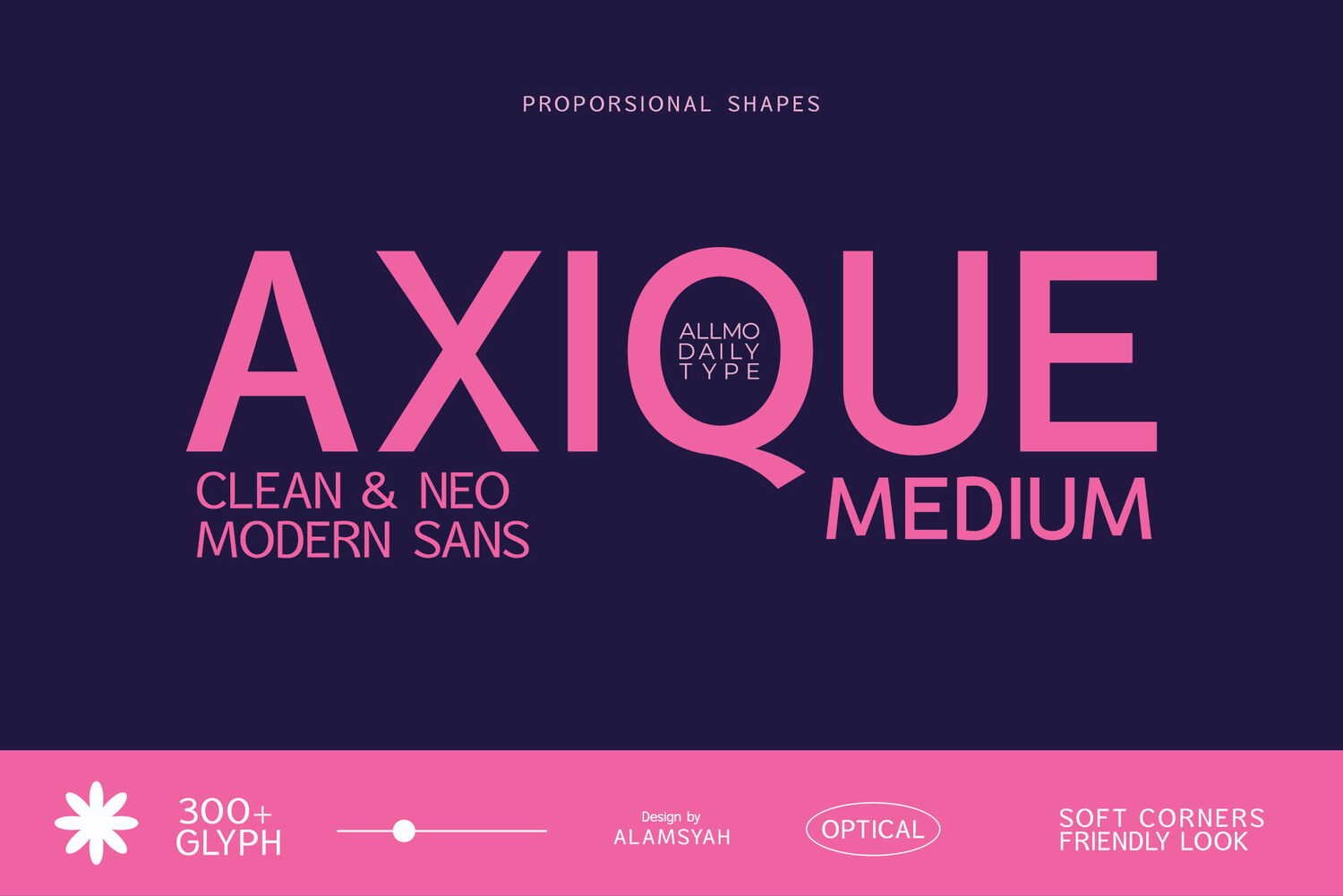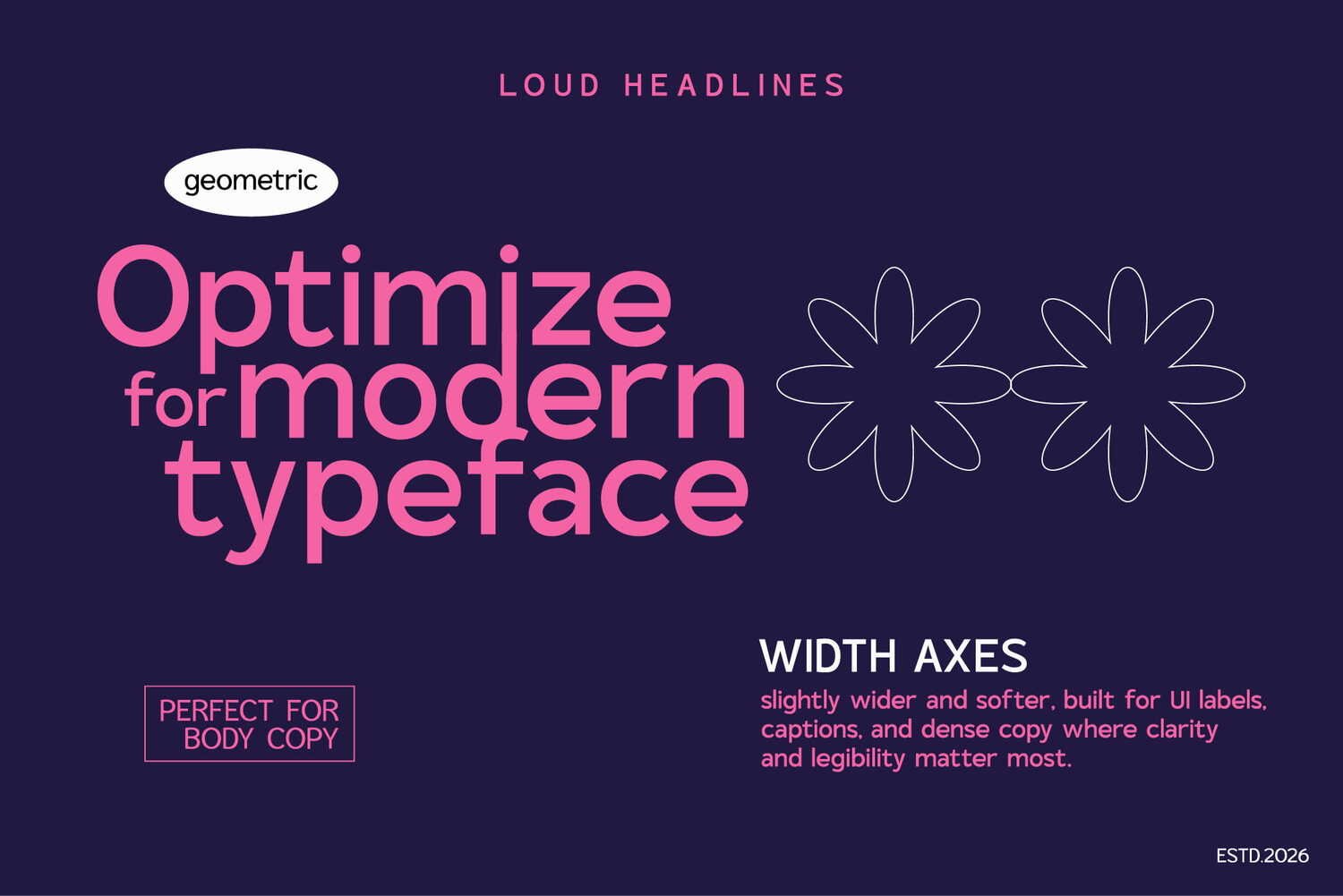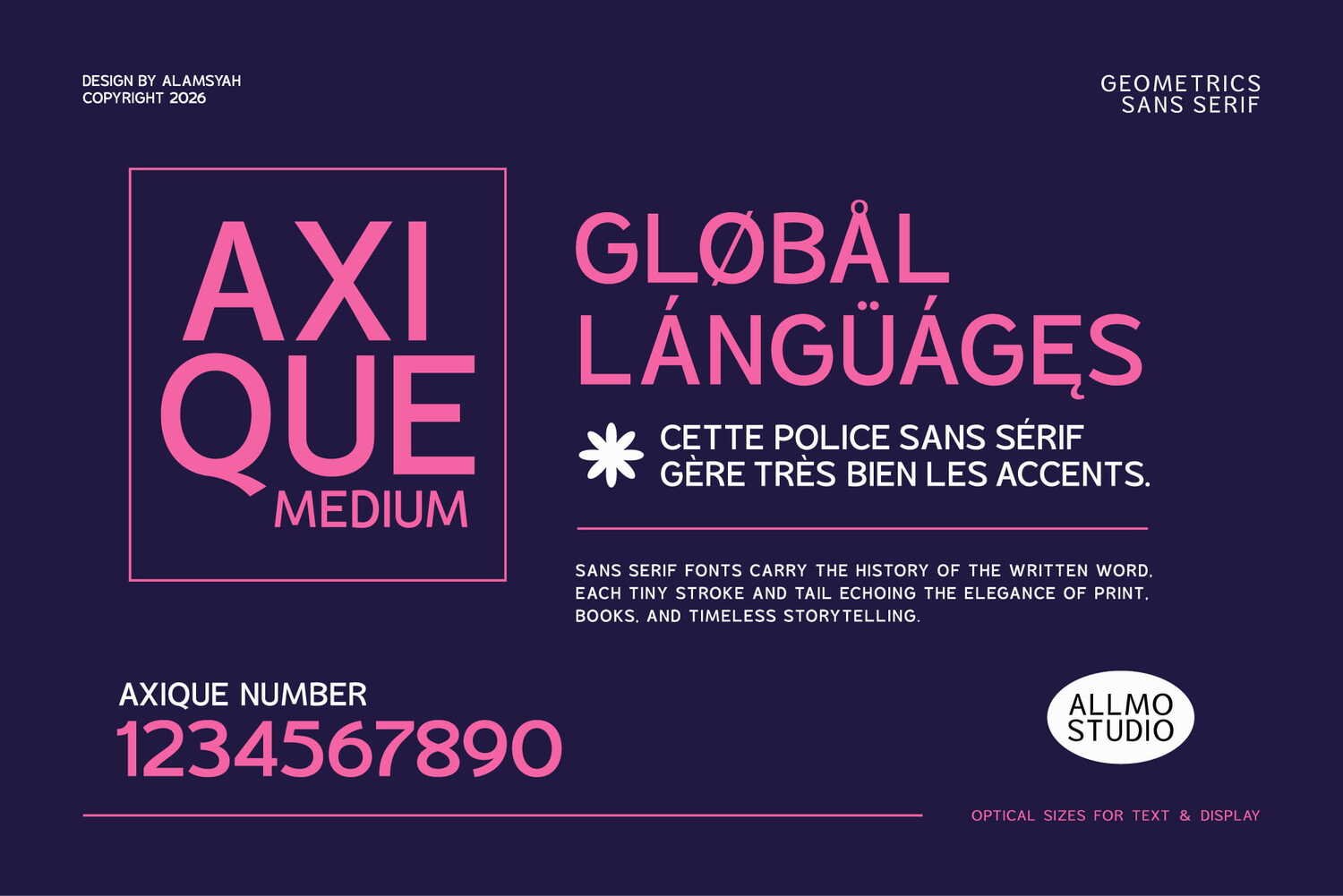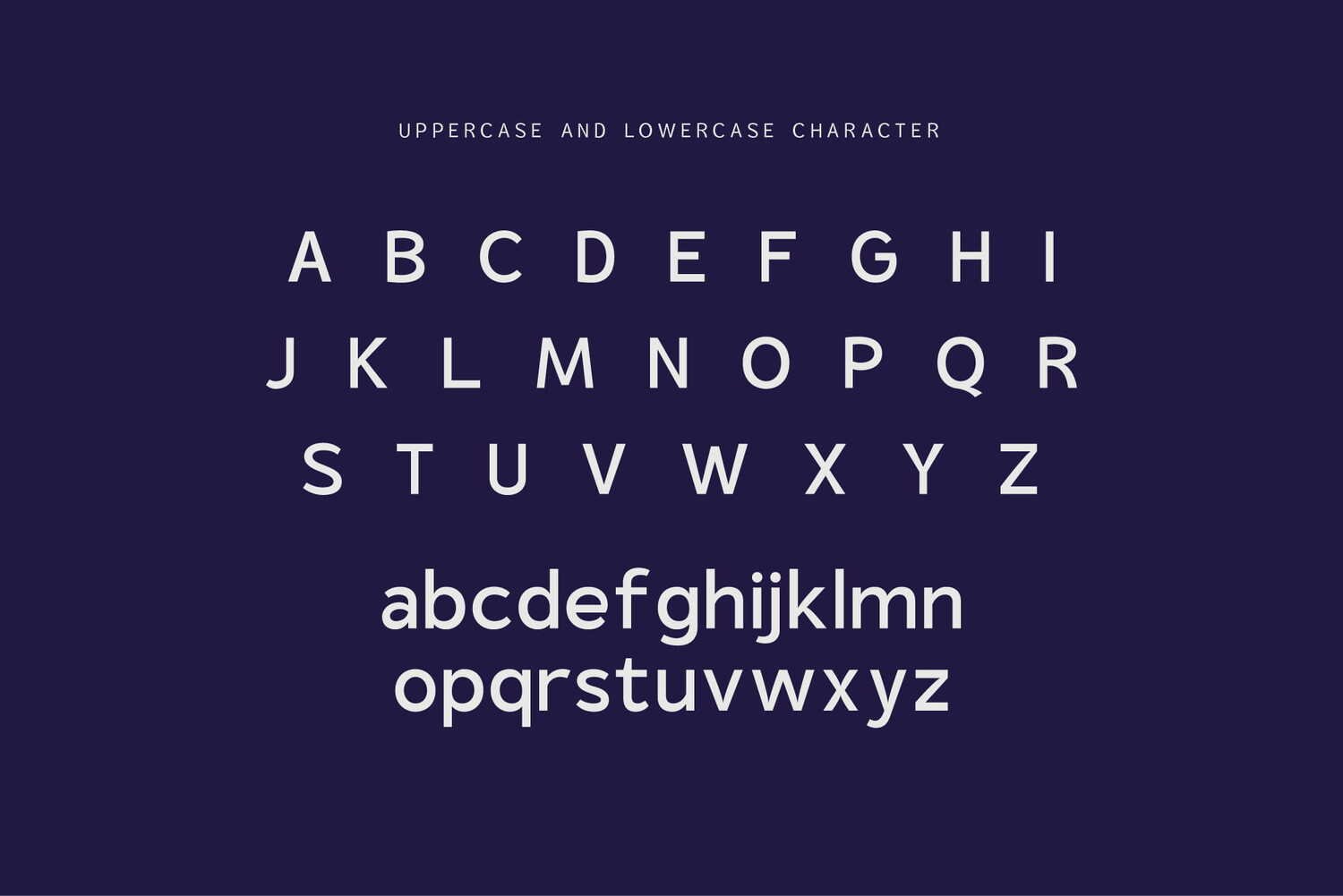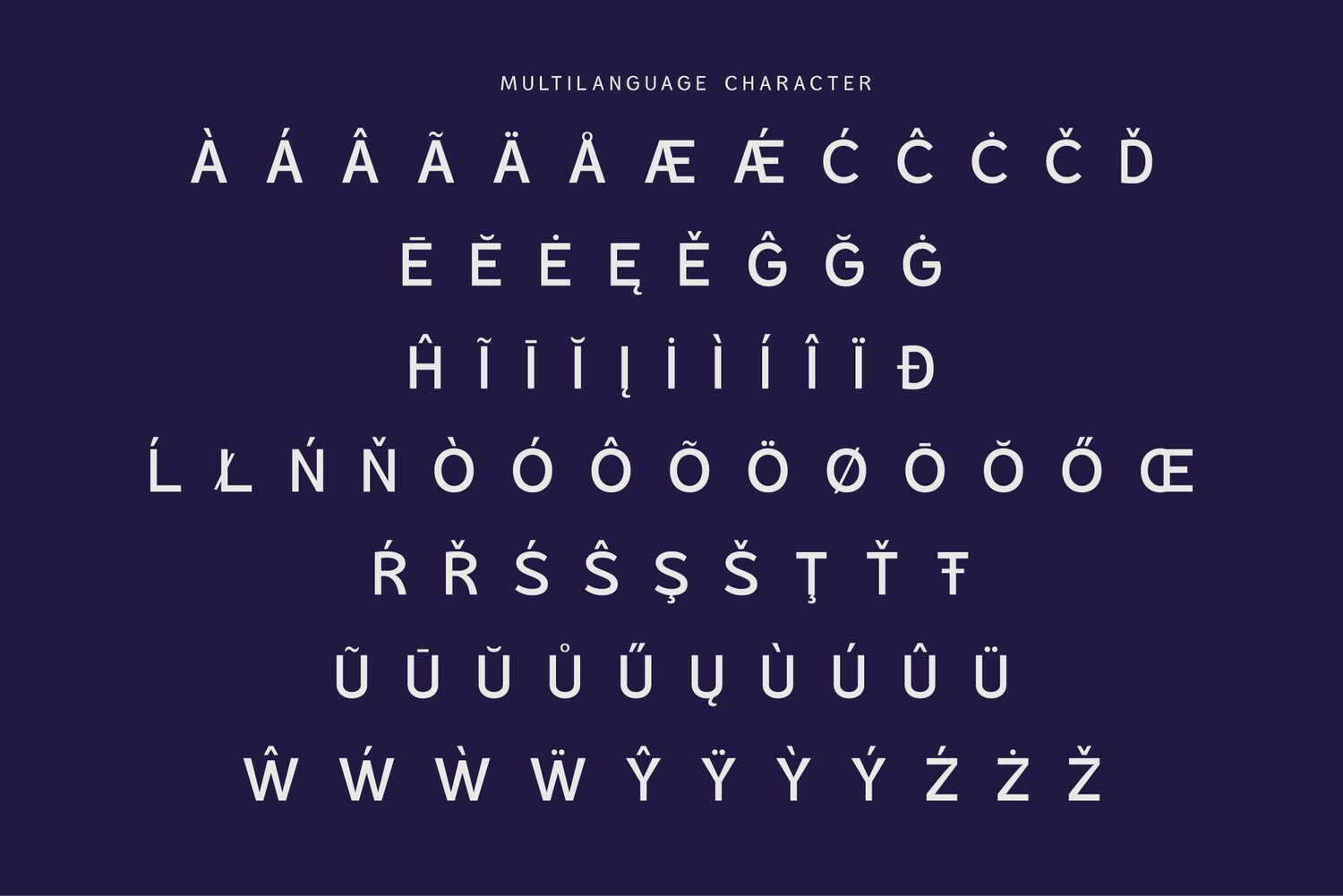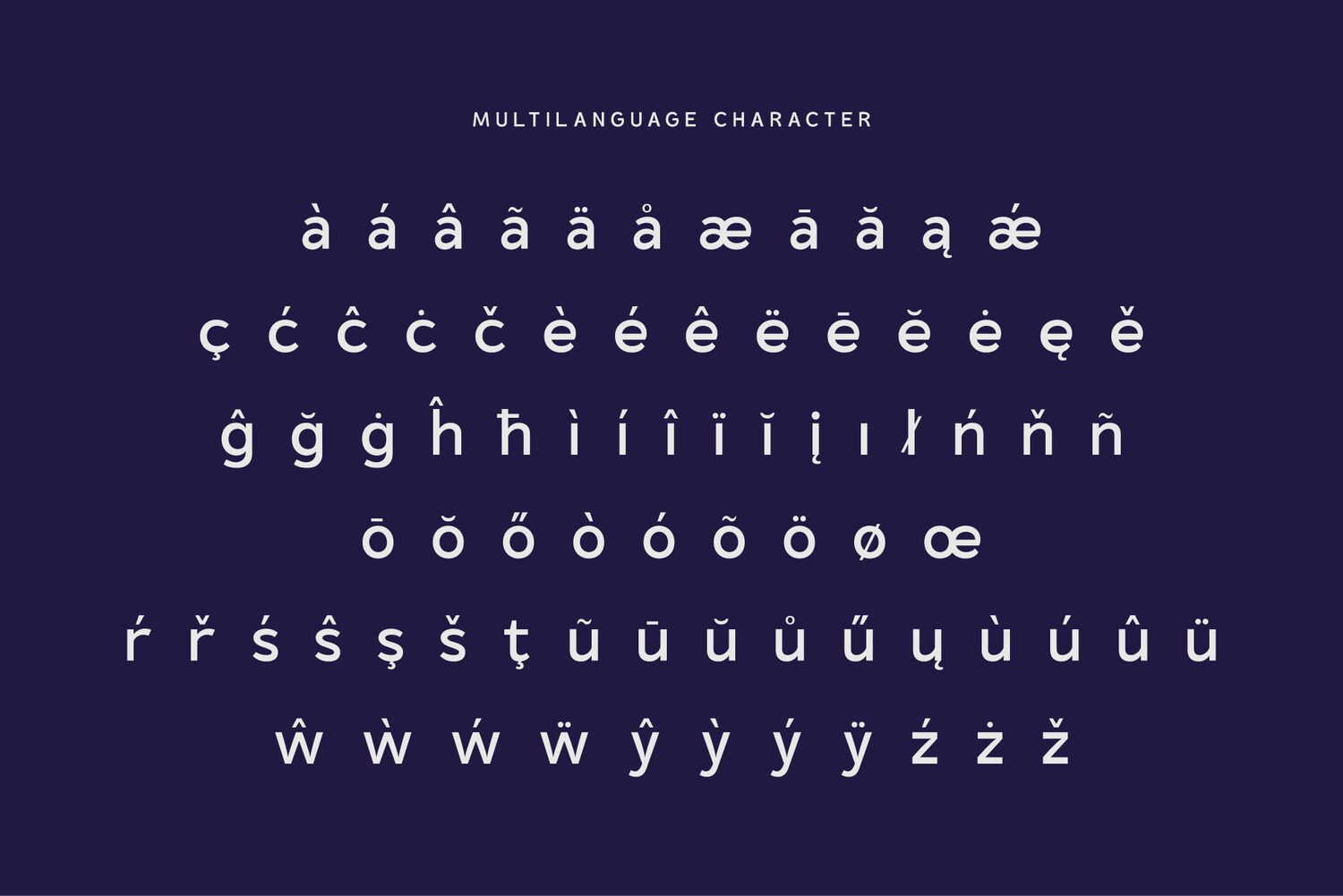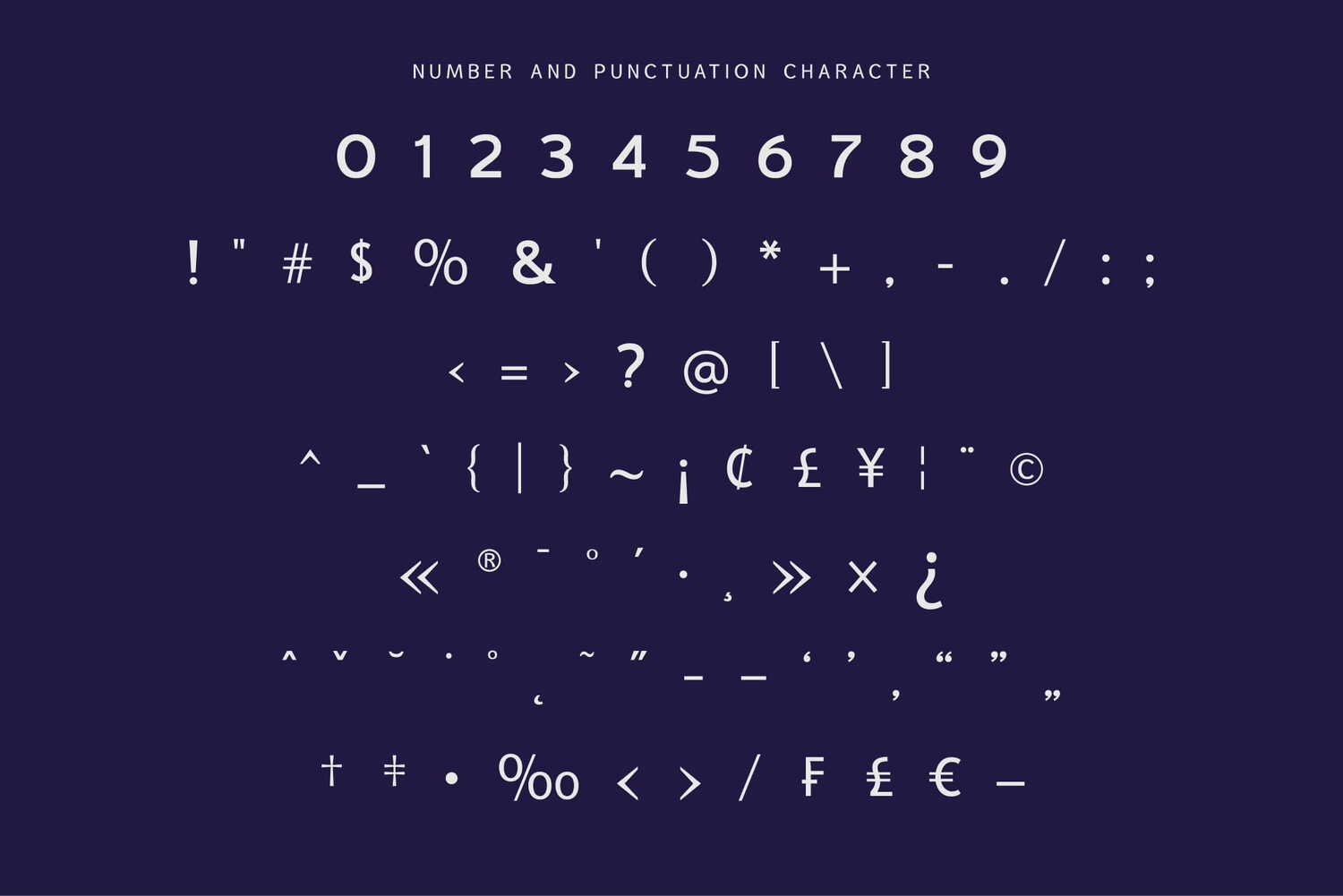
Axique Medium
AXIQUE MEDIUM font is crafted with balanced proportions and soft corners to create a clear, confident, and engaging reading experience, making it the ideal choice for website body copy, articles, captions, and any interface design.
Unlike its bolder counterpart, AXIQUE MEDIUM excels in providing structure and clarity to your text. It’s the essential, dependable font for designers who need a contemporary sans serif that works beautifully for both screen and print, ensuring your message is always delivered with clean, modern precision.